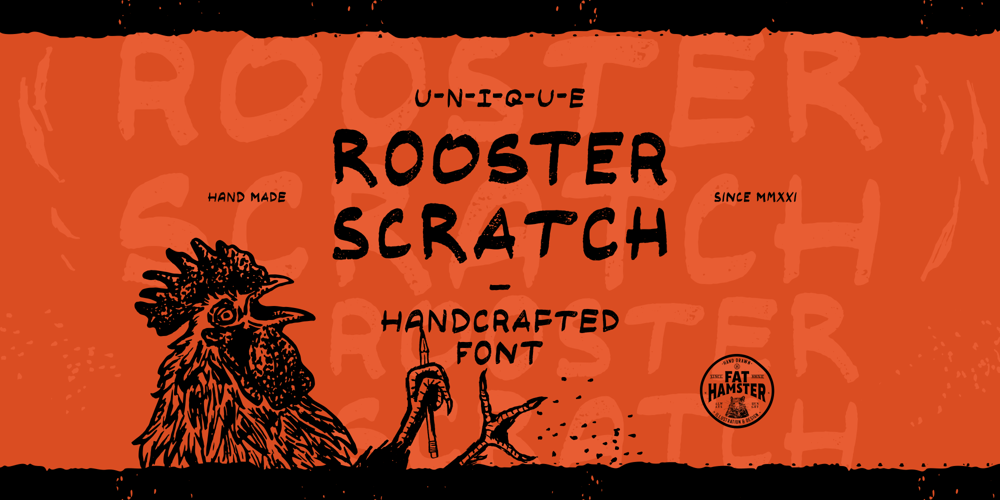
Rooster Scratch Font Family was designed by Alesia Kutsian, Aliaksei Hvozdzeu and published by Fat Hamster. Rooster Scratch contains 1 styles and family package options. Rooster Scratch is an uppercase handwritten typeface, it’ill give your work natural and hand crafted feel.Now you can see what happens, when rooster takes a marker pen in its foot.Perfect for quotes, logos, magazine & poster design, bold headers, apparel, packaging & label design. In other words this typeface is perfect for your next project!